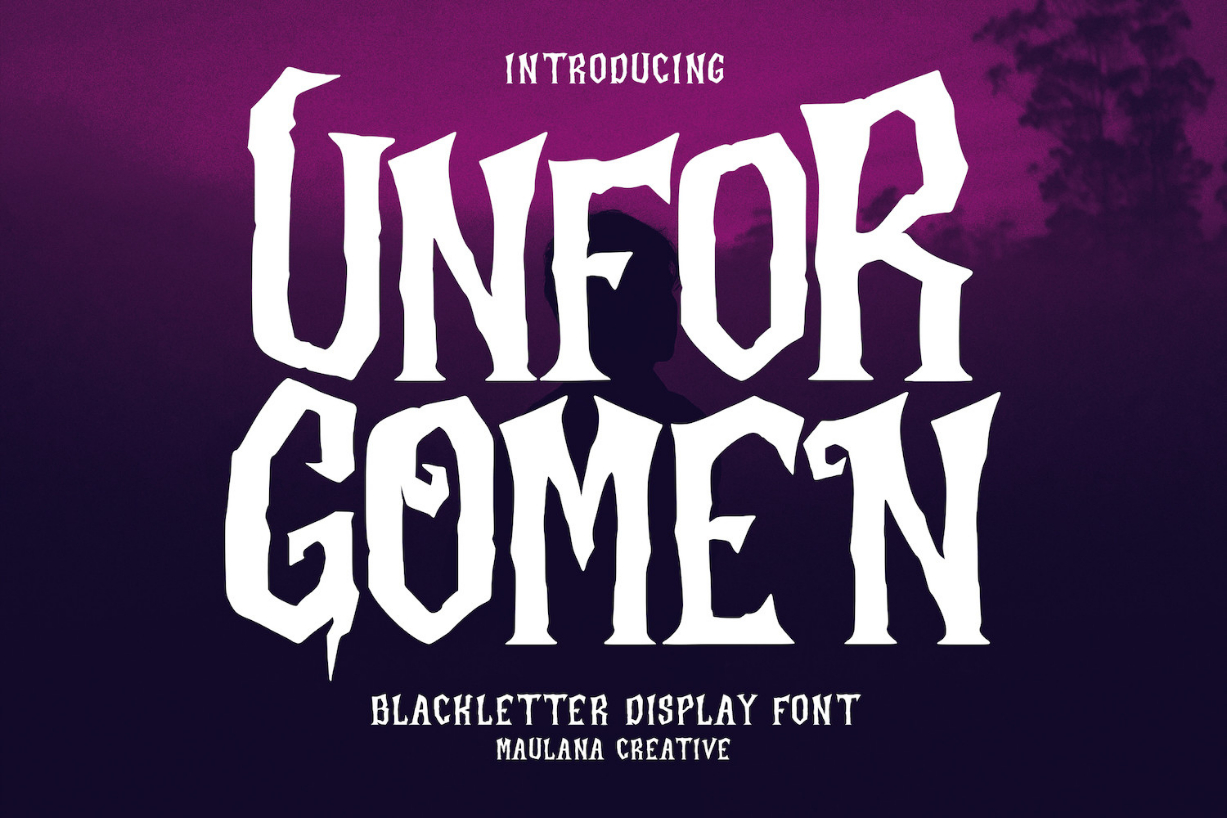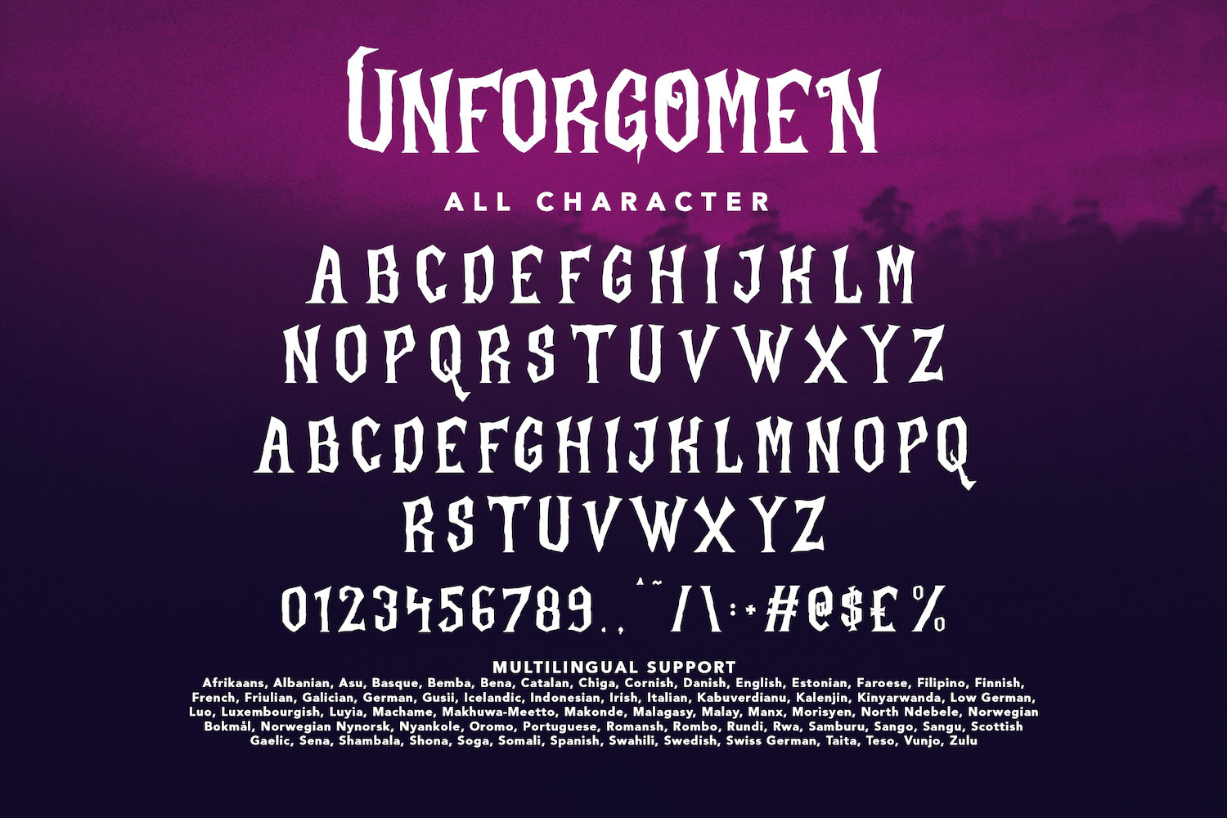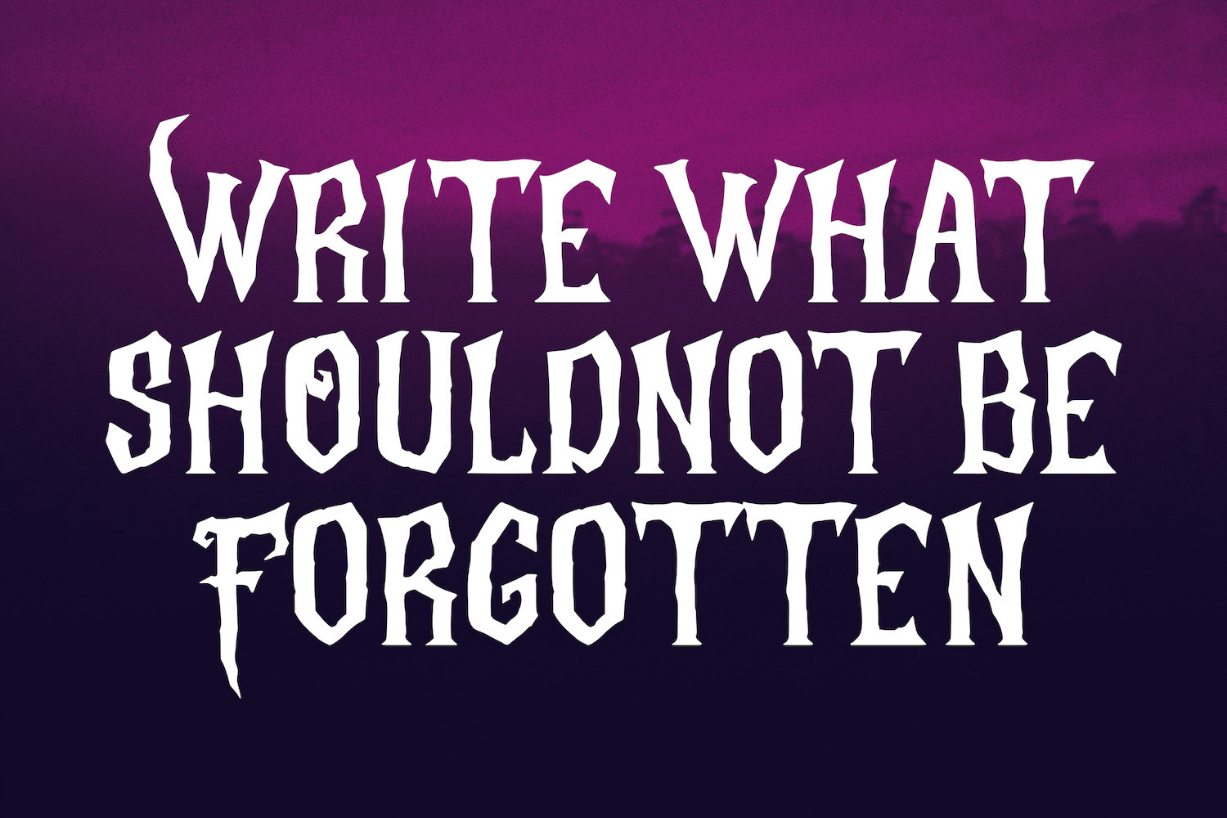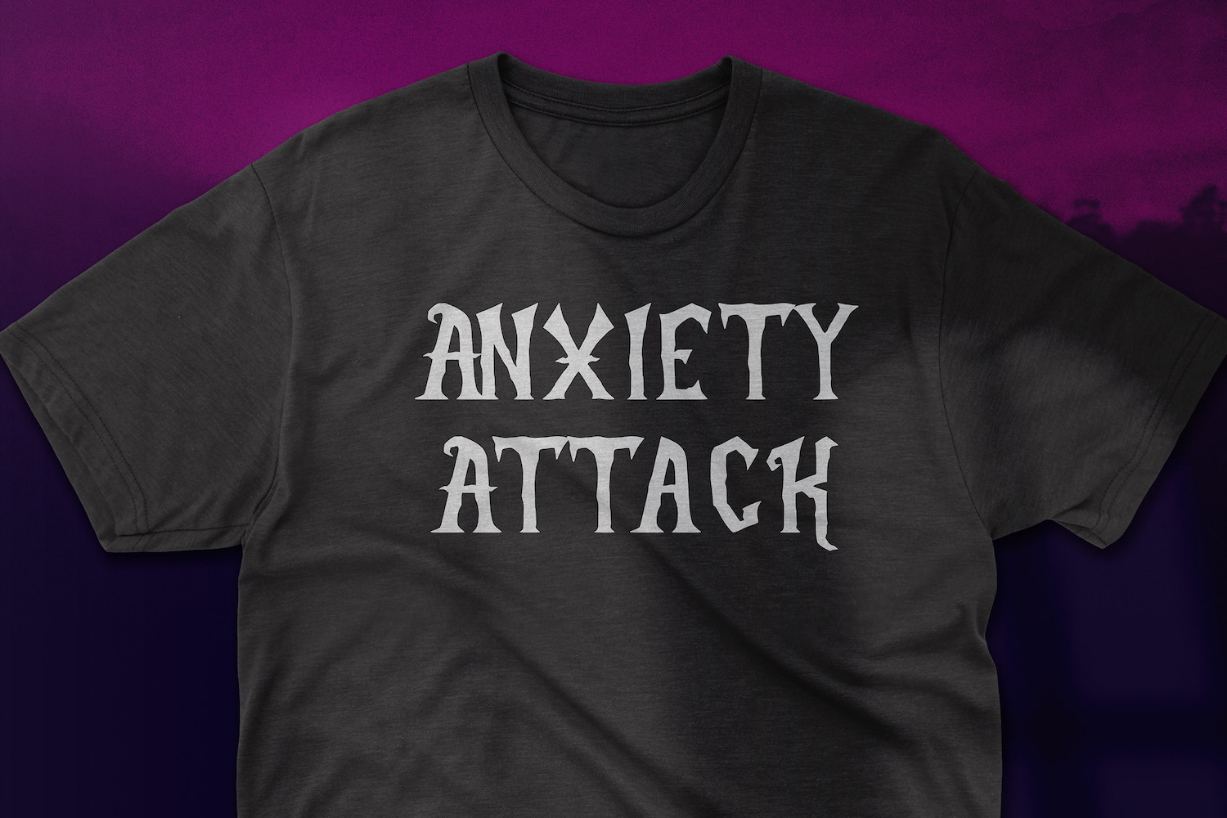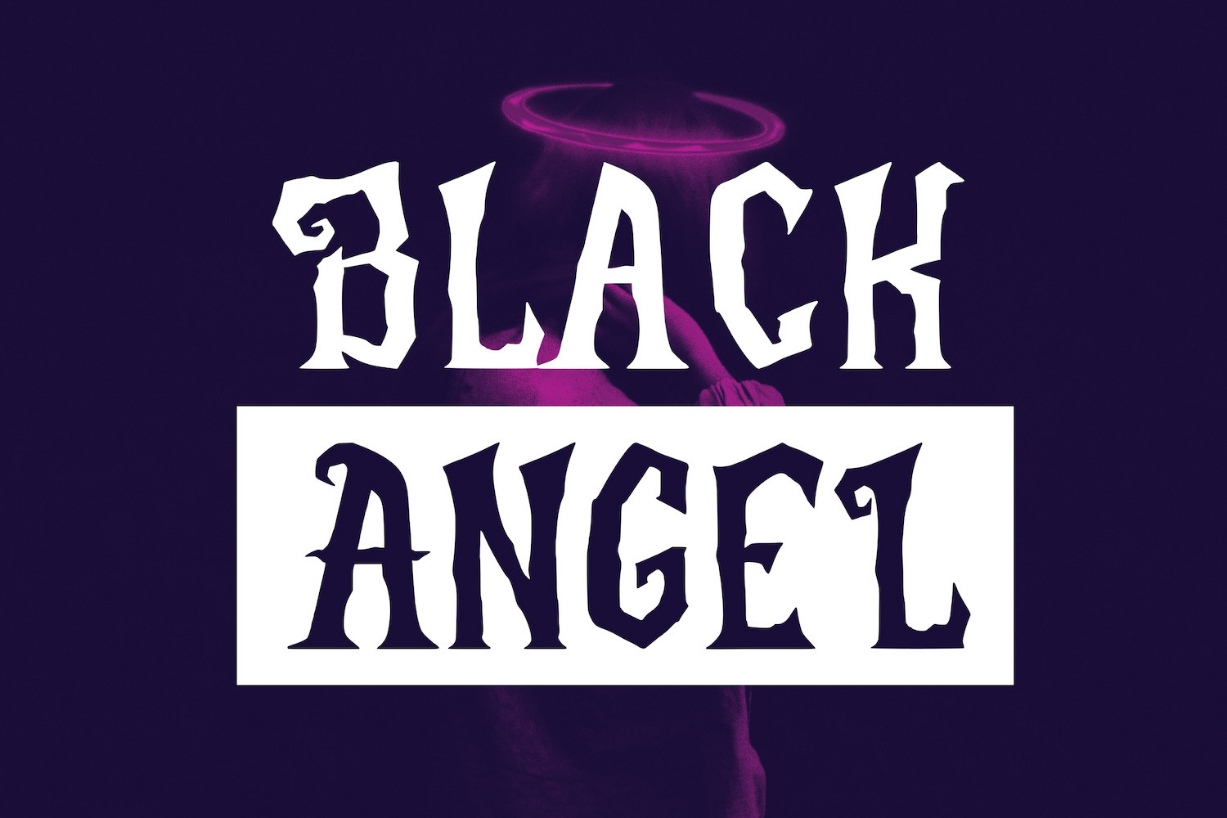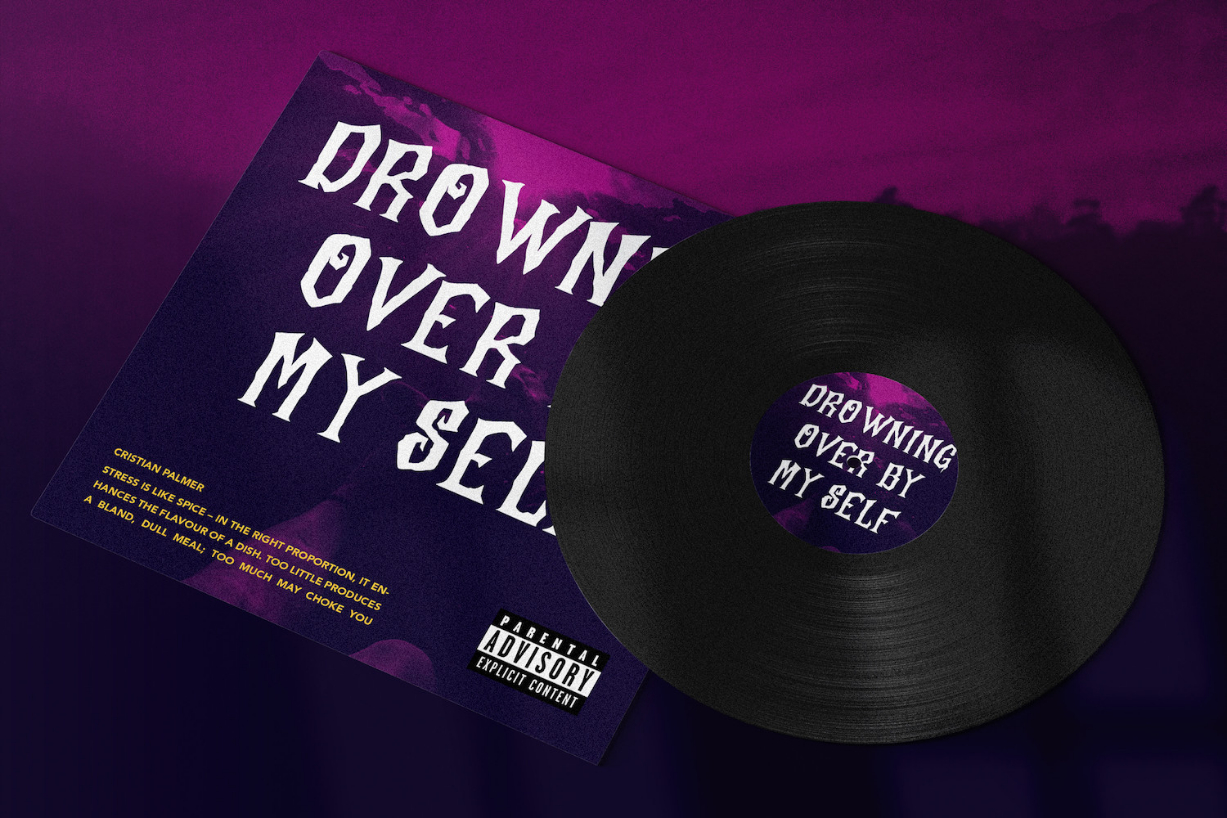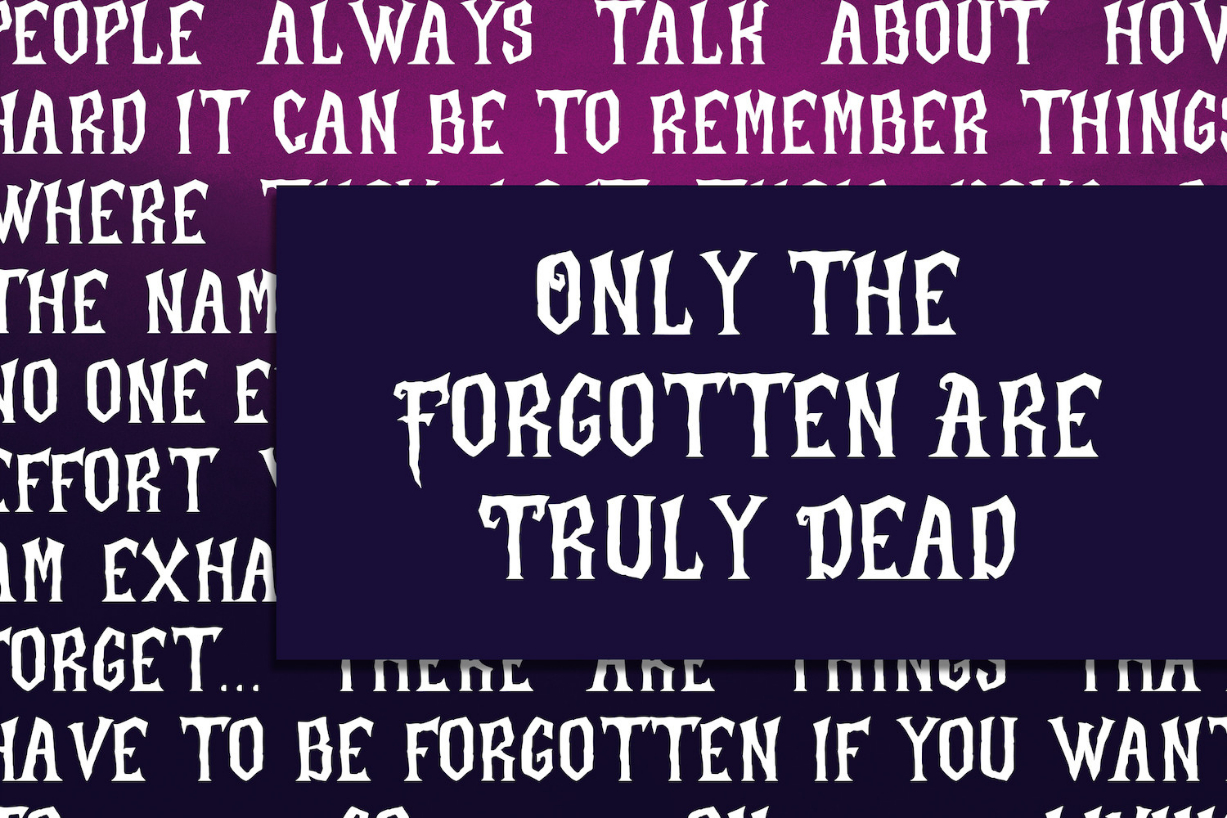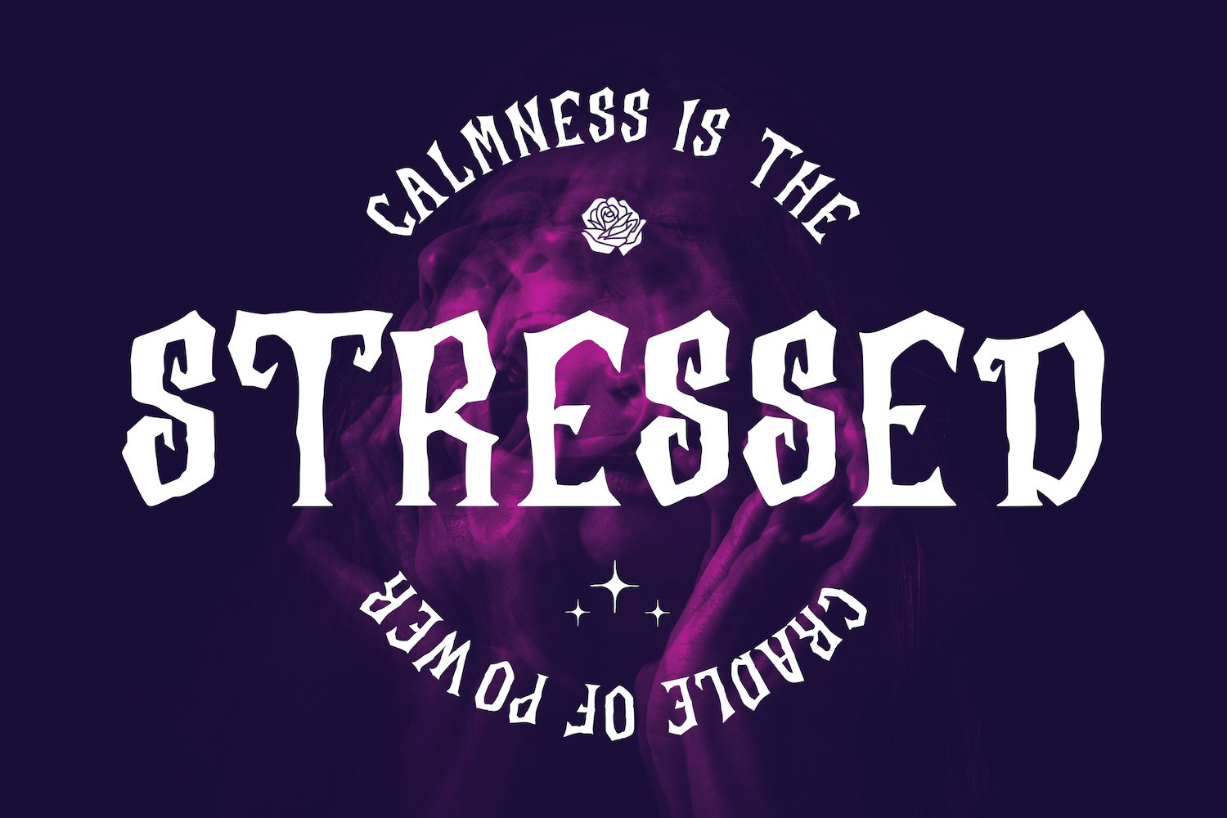
Unforgomen Blackletter Display Font Font
About Unforgomen Blackletter Display Font
Unforgomen is a modern blackletter font is a unique typeface that combines traditional calligraphic elements with contemporary design elements. This font style is ideal for projects that require a strong, classic feel with a touch of modernity. This font is PUA encoded which means you can access all glyphs and swashes effortlessly!